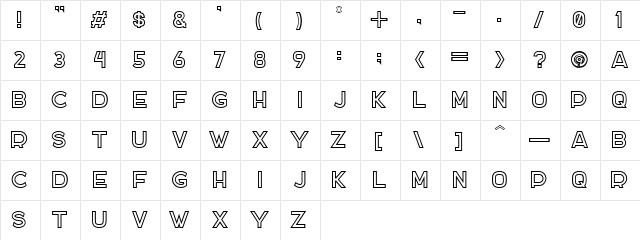
DOCKER TWO
| Foundry | Slava "Designvamp" Krivonosov |
| Designer | Slava "Designvamp" Krivonosov |
Design Context for DOCKER Typeface
DOCKER takes a measured approach to typography — its balanced proportions and neutral character make it a reliable workhorse for both digital and print work.